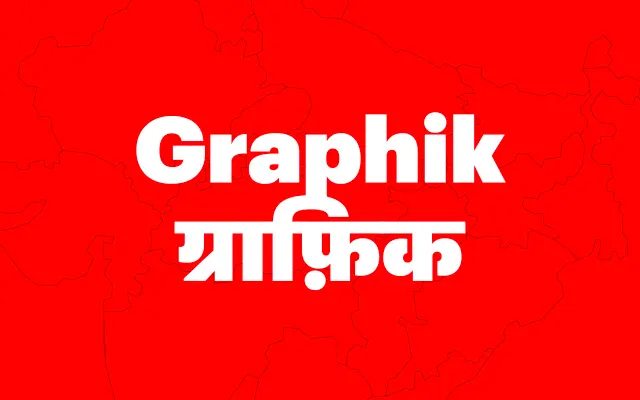
GT America Devanagari
A Devanagari extension of the GT America grotesque family, bridging Latin and Indic script typesetting.
GT America Devanagari brings the GT America grotesque framework into the Devanagari script, allowing for consistent typographic voice across Latin and Indic settings. The typeface is offered through November, an Indian type foundry with a focus on multi-script typography. Beyond this, the page provides no detailed information about weights, widths or release year for this specific typeface.
GT America Devanagari extends the GT America grotesque sans-serif family into the Devanagari script, placing it squarely in the grotesque sans-serif tradition adapted for Indic typography.